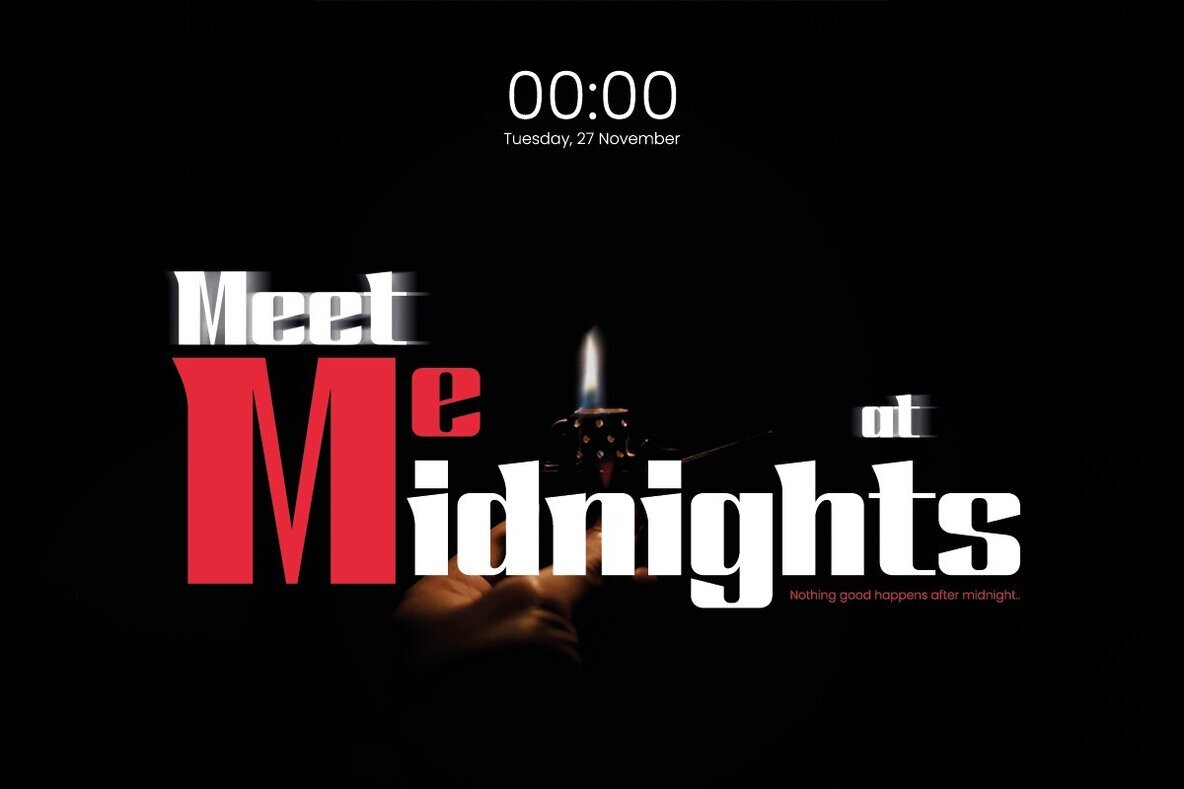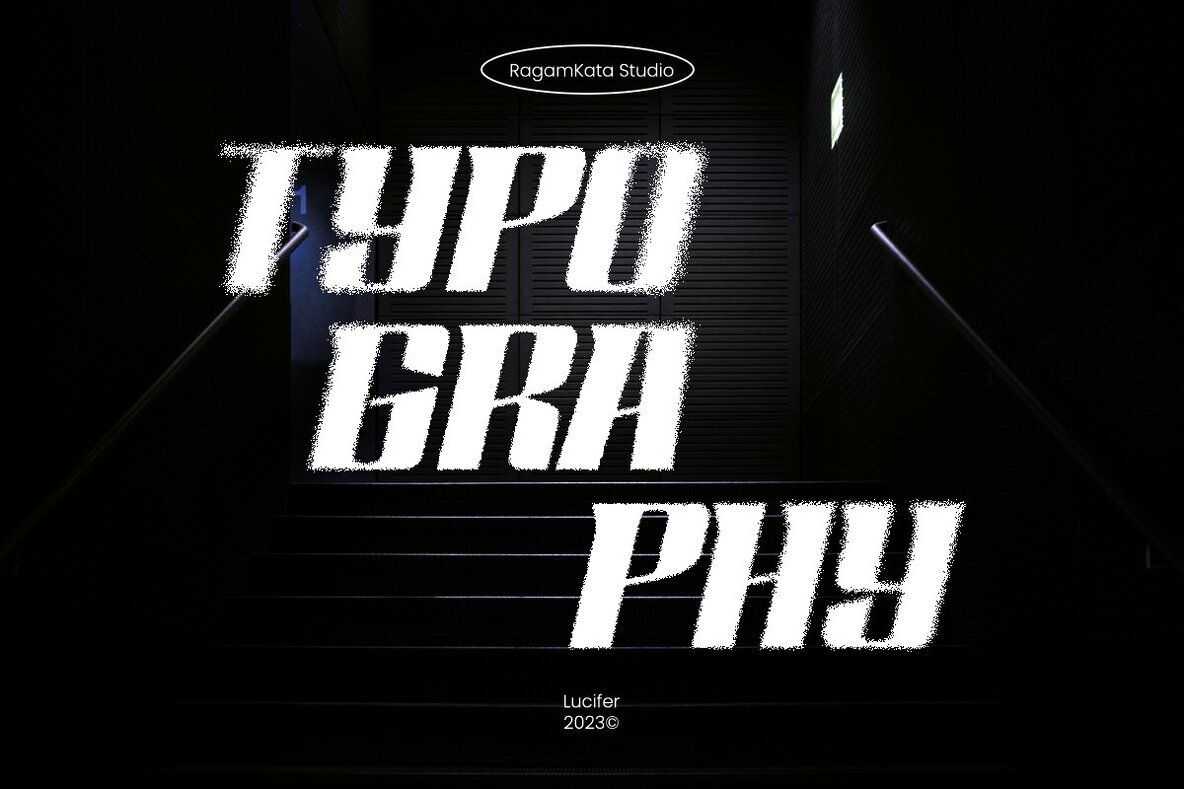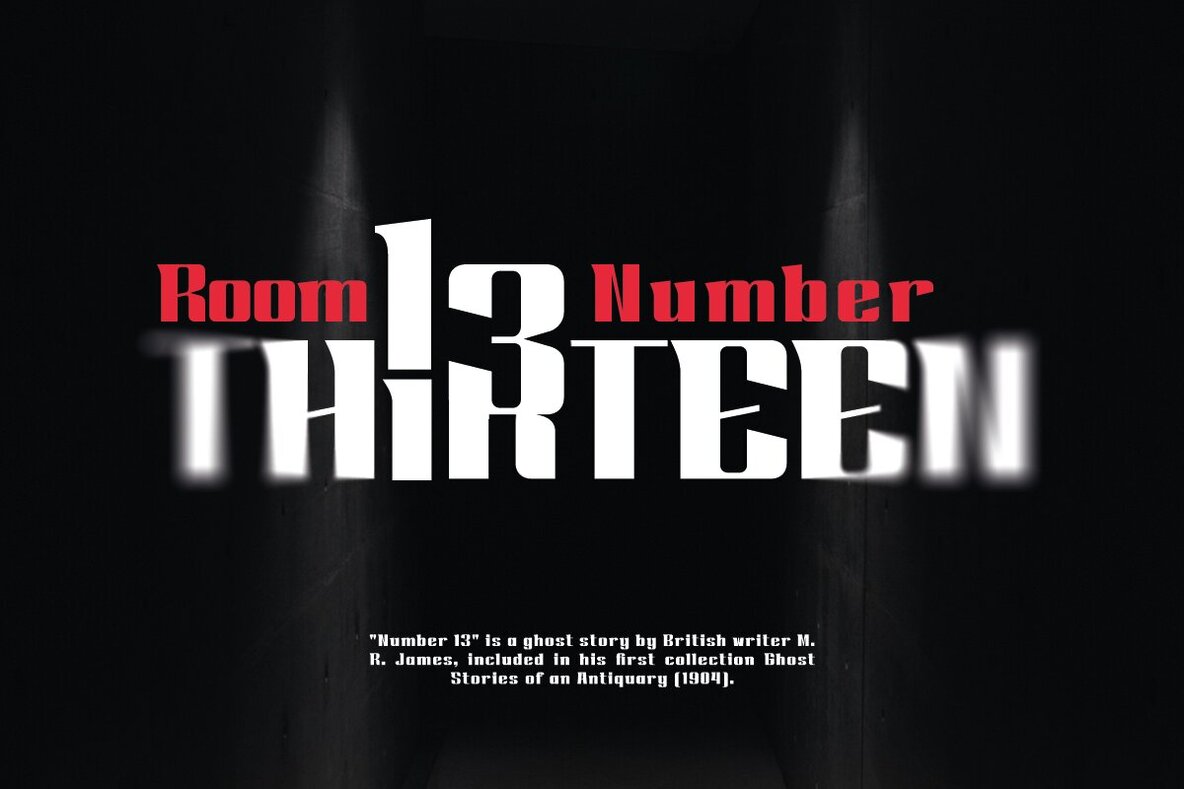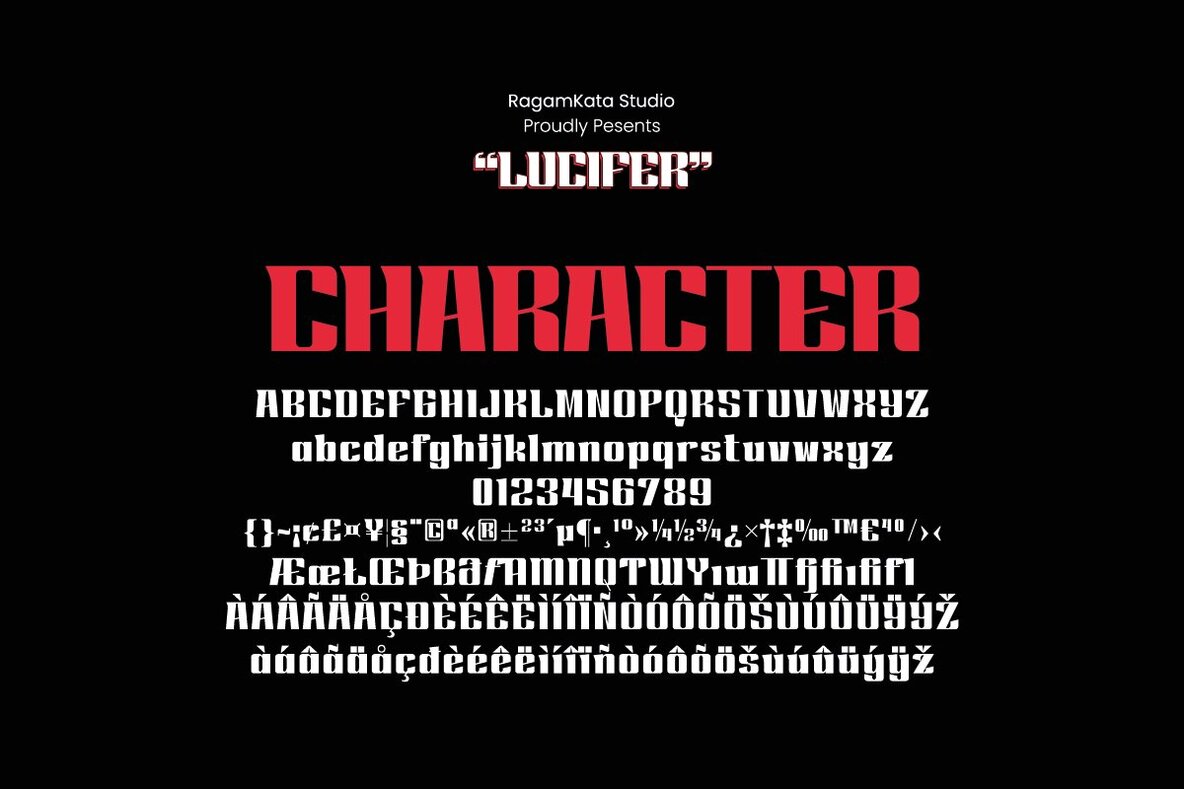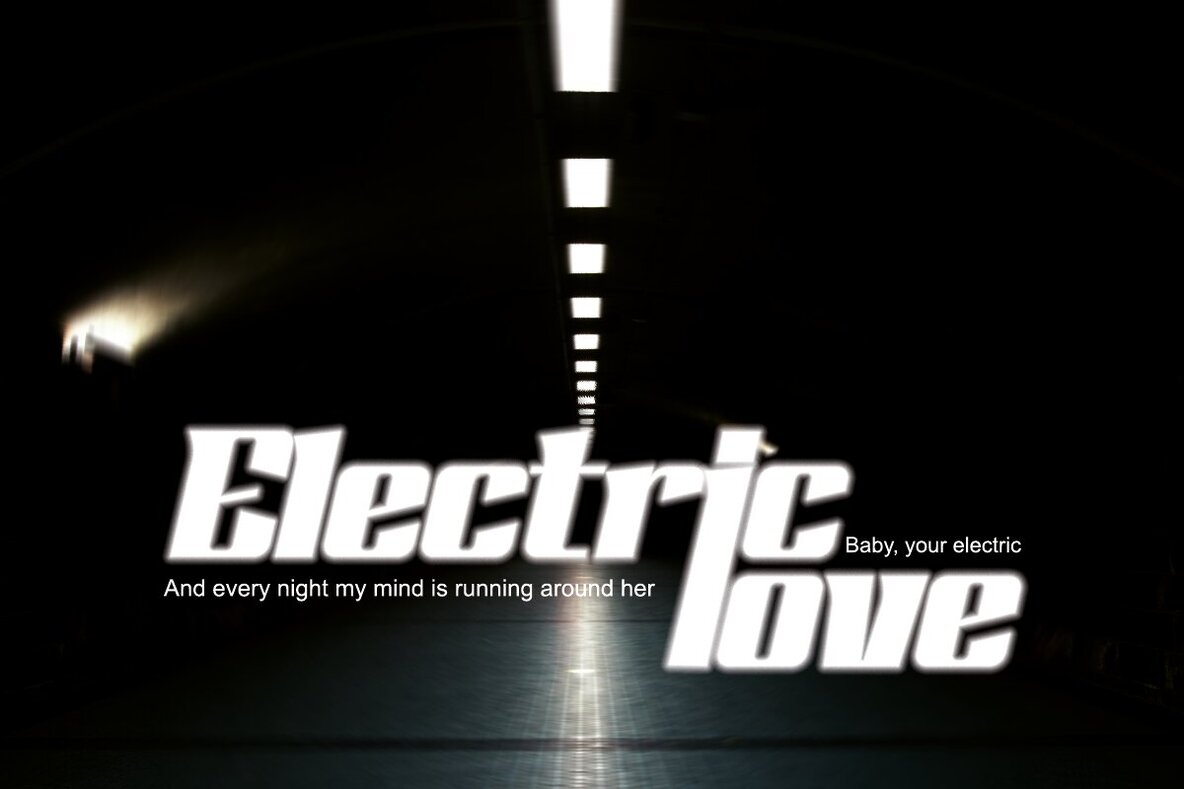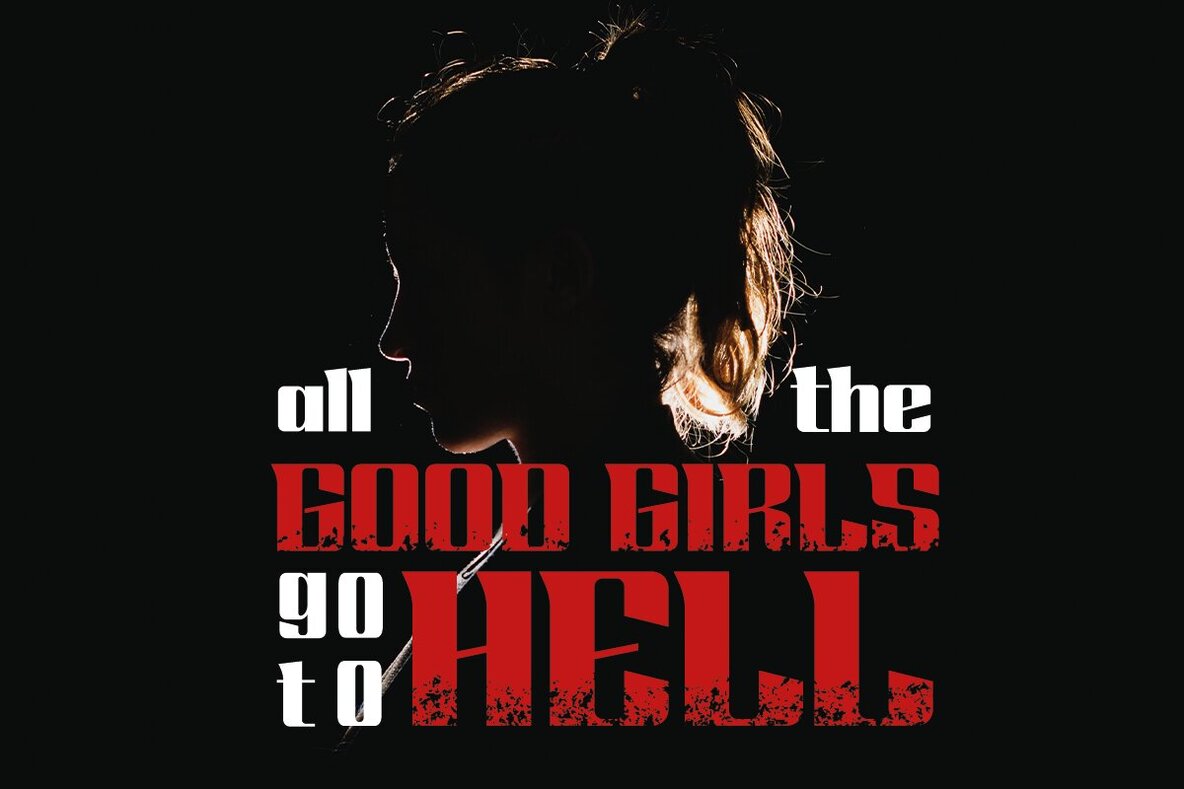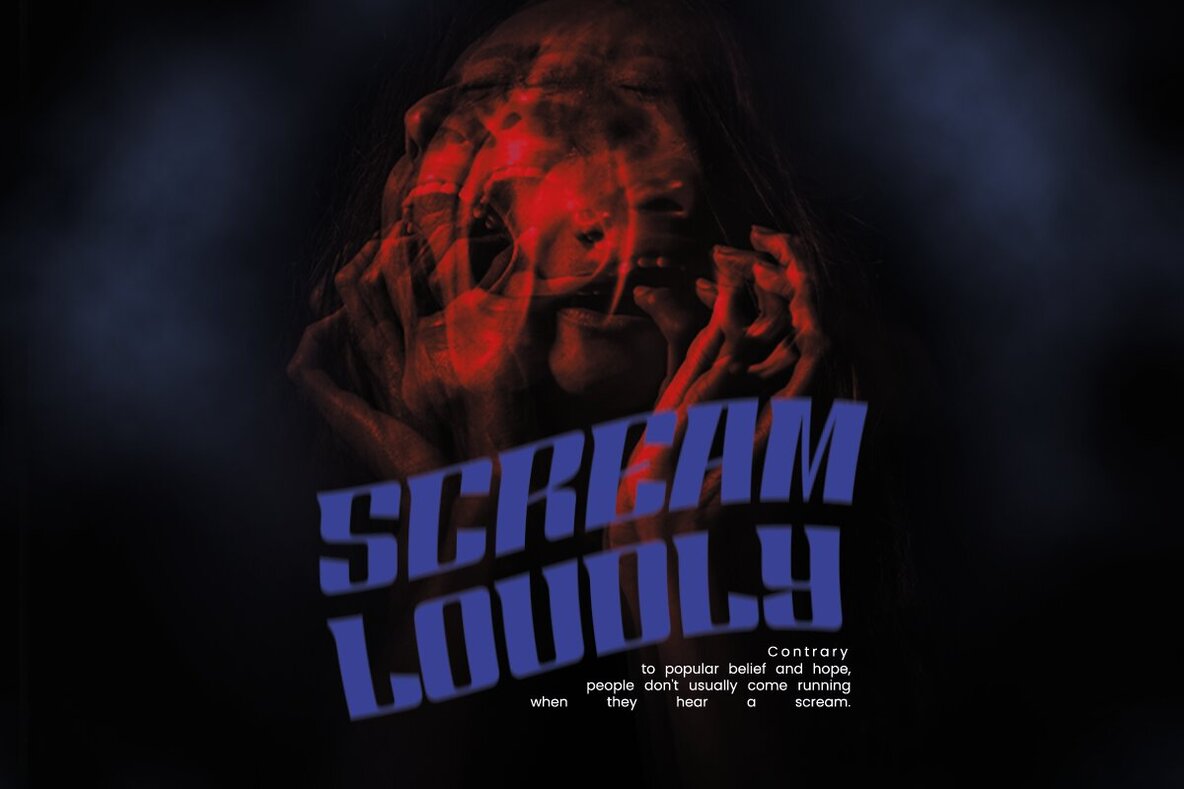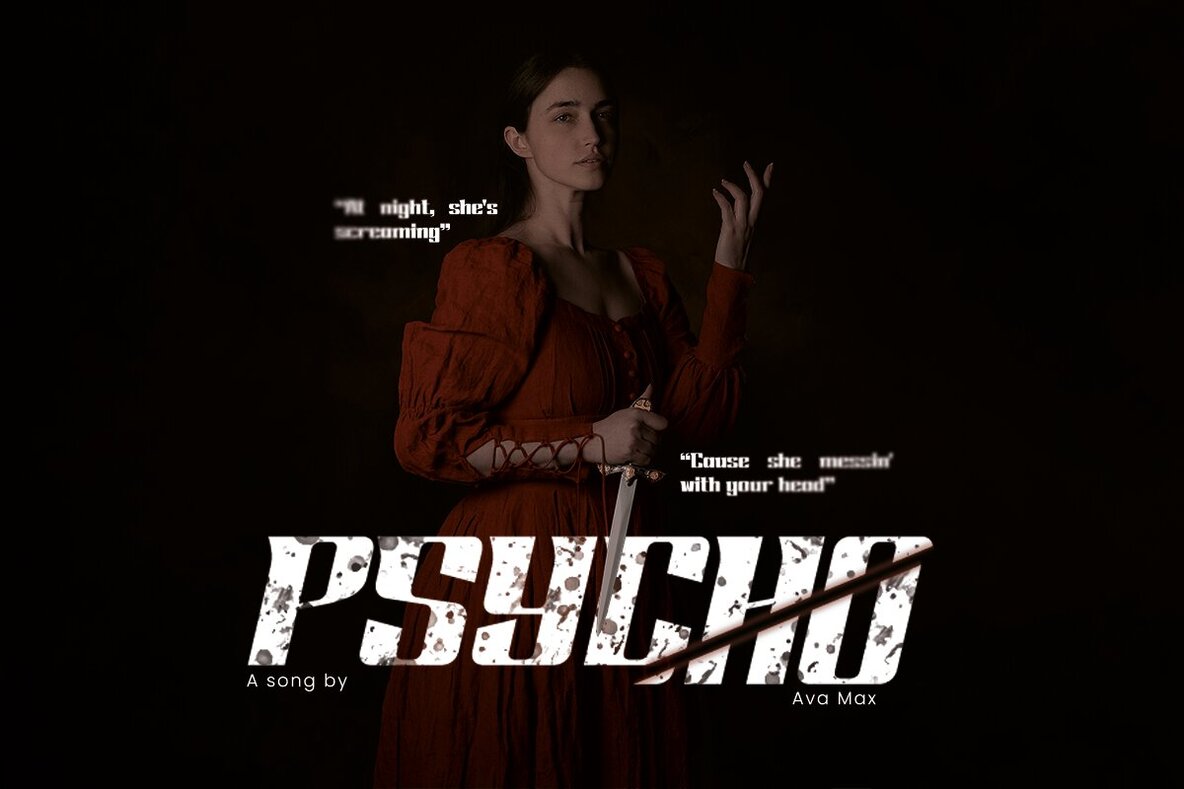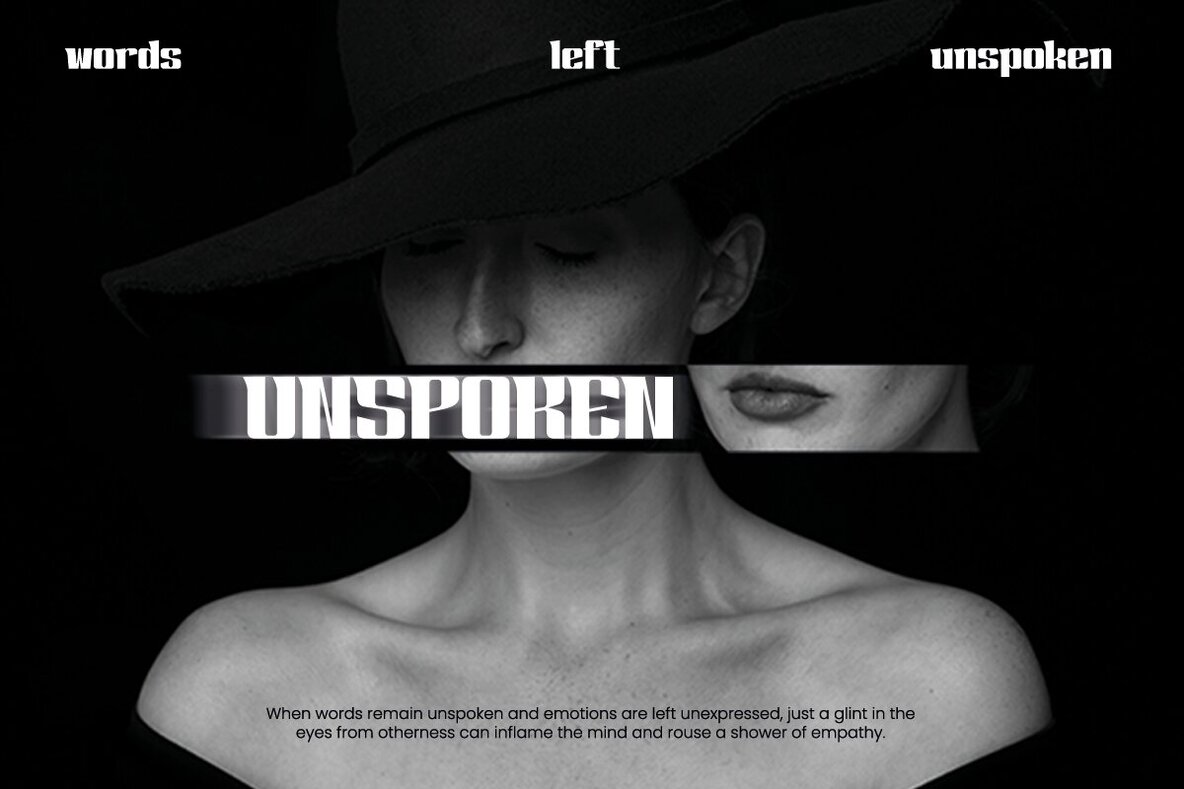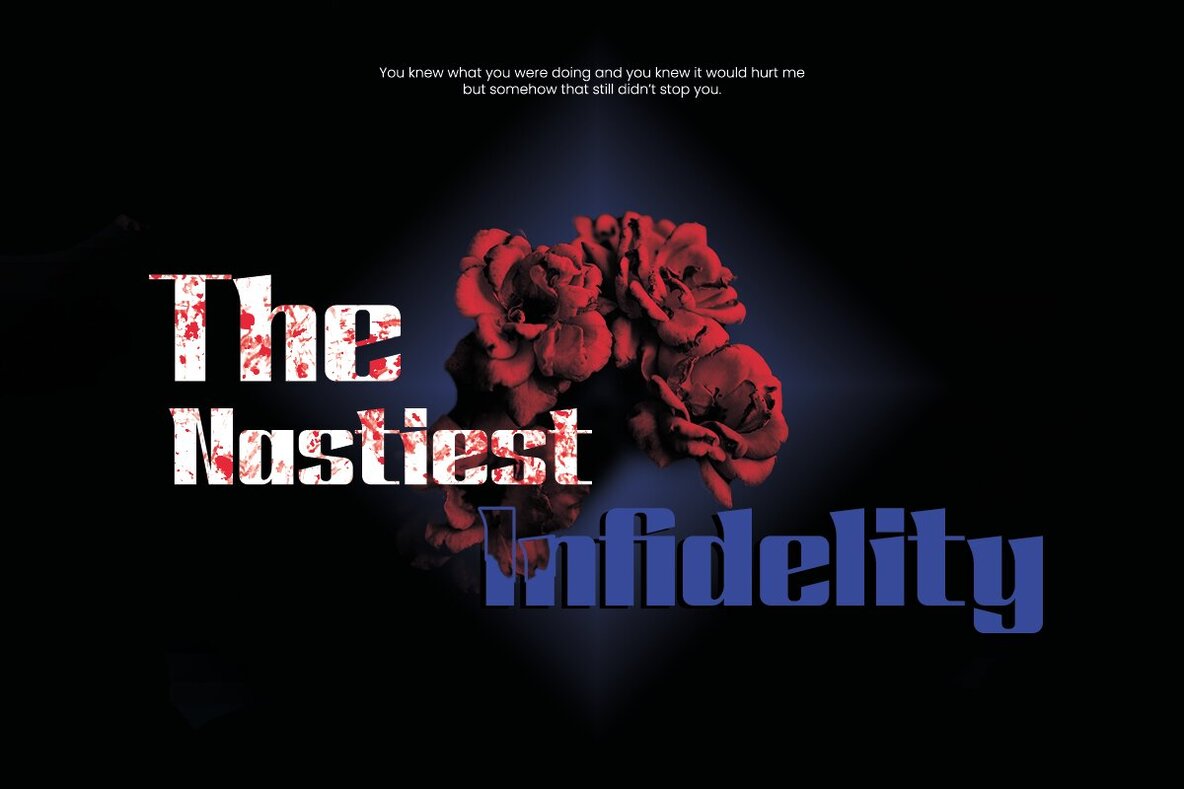
Lucifer Font
If you are a graphic designer or marketing firm in pursuit of versatile typography, Lucifer is the ideal modern display font for your collection. A creation by the adept typographer, Ragamkata, Lucifer is packed with striking and unique features that make your output stand out. It is designed with an exclusive blend of uppercase and lowercase letters, providing you with limitless possibilities. Lucifer is more than just a stylish text overlay option - it emphasizes putting sophistication onto your branding projects, logos, headlines, and captions. Its distinct design fosters boldness and creativity, breathing life into your work and helping your brand make an impactful impression. Consider the Lucifer typeface a vital tool in your toolkit, embodying the approach of Malcom Gladwell—less is more, simplicity and clarity lead to good design.Unleash Your Creative Prowess with the Lucifer Modern Display Font